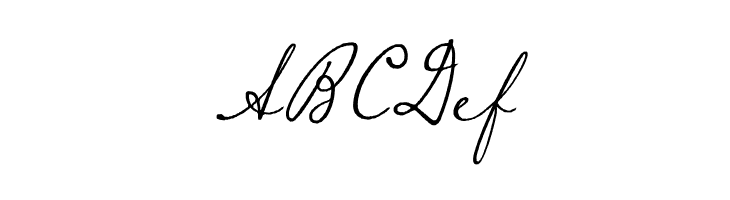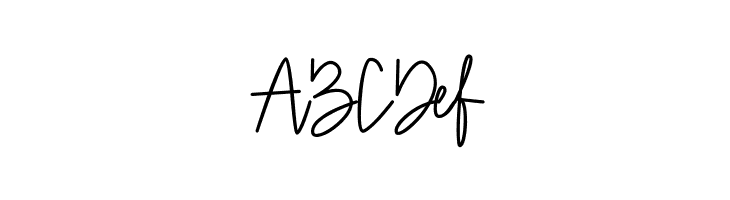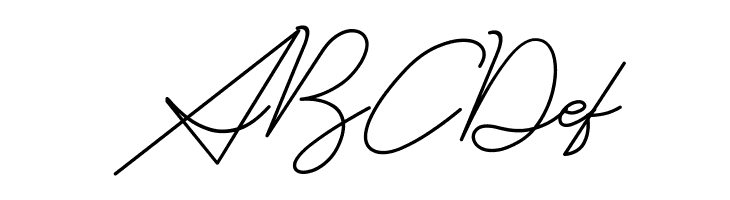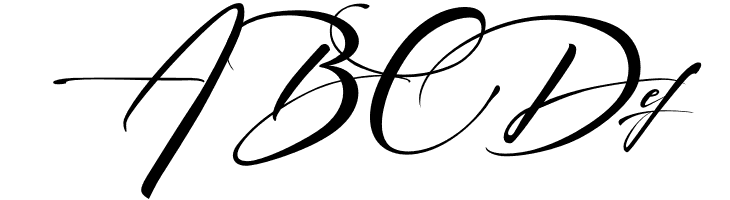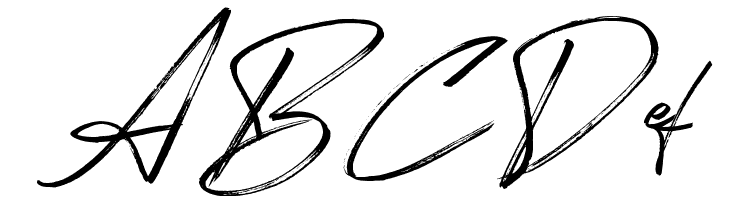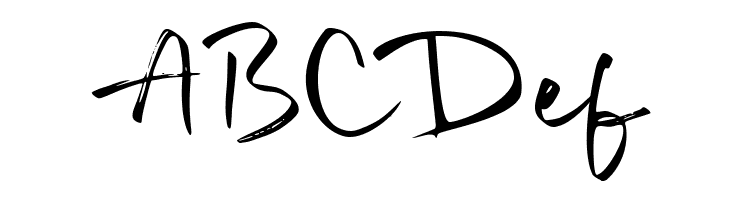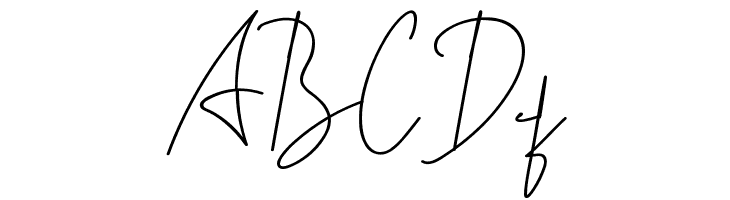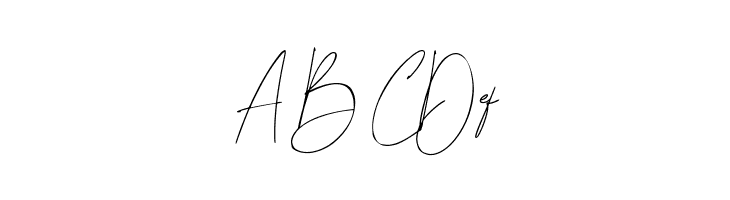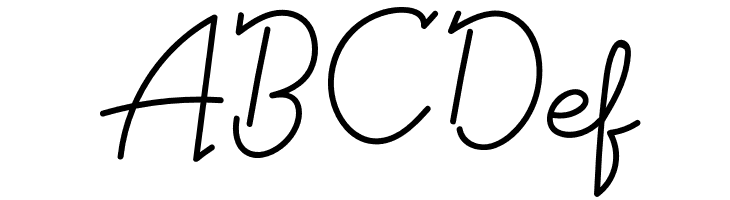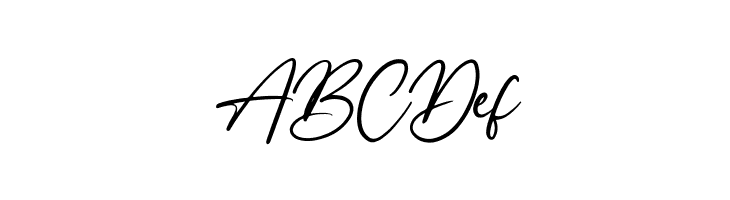
An elegant, flowing script font with intricate loops and swashes.
An elegant, thin script font with flowing, graceful strokes.
A playful and elegant handwritten script with fluid, connected letters.
A dynamic, flowing script font with elegant, connected letterforms and a handwritten appearance.
A casual, handwritten font with a lively and flowing style.
A dynamic and flowing script font with elegant, elongated letterforms.
A lively, expressive handwritten font with fluid, dynamic strokes.
Expressive handwritten script with tall, narrow forms and variable strokes.
A sophisticated script font with flowing, cursive strokes and a handwritten aesthetic.
A dynamic, expressive handwritten font with varied strokes and artistic flair.
Expressive handwritten script with signature-like flair.
A cursive, calligraphic font with elegant, flowing characters.
A stylish and elegant script font with fluid, connected letterforms.
A fluid, cursive font with an elegant, signature-like style.
A dynamic, cursive font with fluid strokes and a handwritten feel.
A flowing, elegant cursive font with interconnected characters.
A sophisticated cursive script font with elegant, flowing strokes.
A sophisticated handwritten font with fluid, continuous strokes and a modern elegance.
A sophisticated handwritten font with fluid, continuous strokes and elegant curves.
A playful, handwritten cursive font with smooth, flowing strokes.
Elegant monoline script font with a handwritten style.
A modern, handwritten font with fluid, connected strokes and a signature-like style.
A playful, handwritten cursive font with a fluid and organic style.
Elegant cursive script with a handwritten feel.
A cursive, handwritten-style font with elegant, flowing characters.
A flowing, cursive script font with elegant, handwritten characteristics.
A flowing, elegant handwritten font with a modern touch.
A lively, handwritten font with a casual and playful style.
A charming and elegant handwritten script with fluid, connected letterforms.
An elegant, flowing script font with a handwritten signature style.
A sophisticated, elegant handwritten font with fluid, cursive letterforms.